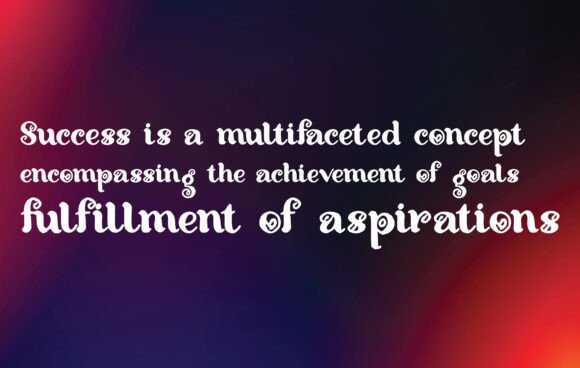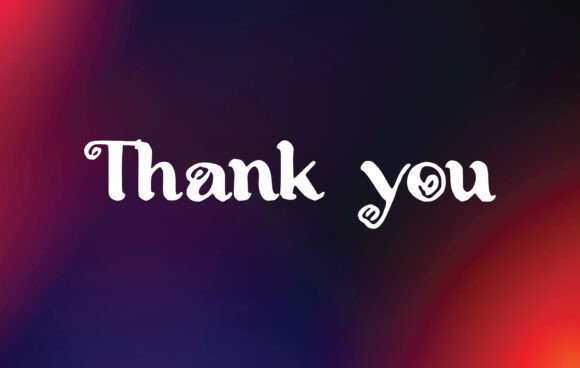
The Ultimate Game-Changer for Designers: Chameleon Font
Have you ever been stuck in a creative rut, staring at a blank page, and unable to bring your vision to life? You’re not alone. We’ve all been there at some point or another. But what if I told you there’s a secret to unlocking your full creative potential? Enter the Chameleon Font, a stunning and versatile handwritten font that’s about to take your designs to the next level.
This beautiful font is more than just a pretty face – it’s a powerful tool for designers looking to create eye-catching logos, branding, and quotes that truly stand out. With the Chameleon Font, you’ll be able to add a personal touch to your designs and make them truly unforgettable. Whether you’re a seasoned pro or just starting out, this font is a valuable addition to any designer’s toolkit.
Chameleon Font Key Features
- High-Quality Resolution: This font features a high-resolution design, with a minimum of 300 DPI, ensuring crisp and clear text display on various devices.
- Unique Color-Changing Effect: Chameleon Font’s distinctive feature is its ability to change color depending on the background, creating a striking visual effect.
- Extensive Character Set: This font includes a comprehensive character set, covering a wide range of languages, including Latin, Cyrillic, and Greek alphabets.
- Weight and Style Options: Chameleon Font offers various weights and styles, including light, regular, bold, and italic, providing flexibility for different design applications.
- Scalability and Legibility: Designed for optimal readability, Chameleon Font remains legible at various font sizes, making it suitable for both body text and headings.
Chameleon Font Review
Overall, I think the Chameleon Font is an interesting experiment in typography. It’s designed to change its color and texture based on the background it’s placed on, which can be both a blessing and a curse.
- The font’s adaptability to different backgrounds can create some unique visual effects.
- It’s perfect for designers who want to add a touch of dynamicity to their designs without too much effort.
- The font’s color-shifting ability can also help to create a sense of hierarchy and emphasis in text-based designs.
- The font’s functionality can be unpredictable, and it may not always work as expected.
- The color-shifting effect can be overwhelming in certain contexts, making it difficult to read the text.
- The font’s adaptability can also make it challenging to maintain consistency in branding and design.
In conclusion, the Chameleon Font is an innovative and attention-grabbing solution for designers who want to push the boundaries of typography. However, its limitations should not be overlooked, and it’s essential to use it judiciously to avoid potential design pitfalls.
Getting the Most Out of the Chameleon Font
Here are some tips to get the most out of the Chameleon Font:
- Combine the Chameleon Font with other fonts to create a unique visual effect.
- Use the Chameleon Font to create bold headings and eye-catching titles.
The Chameleon Font is ideal for:
- Marketing materials such as brochures and flyers.
- Web design